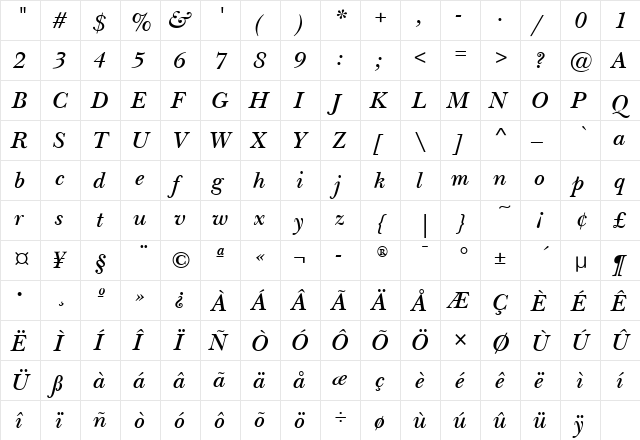
NewBaskervilleSemITC Italic
Design Context for NewBaskervilleSemITC Typeface
NewBaskervilleSemITC is a composed and adaptable typeface that performs quietly and consistently across a wide range of design contexts. The slanted form adds forward momentum and visual energy.